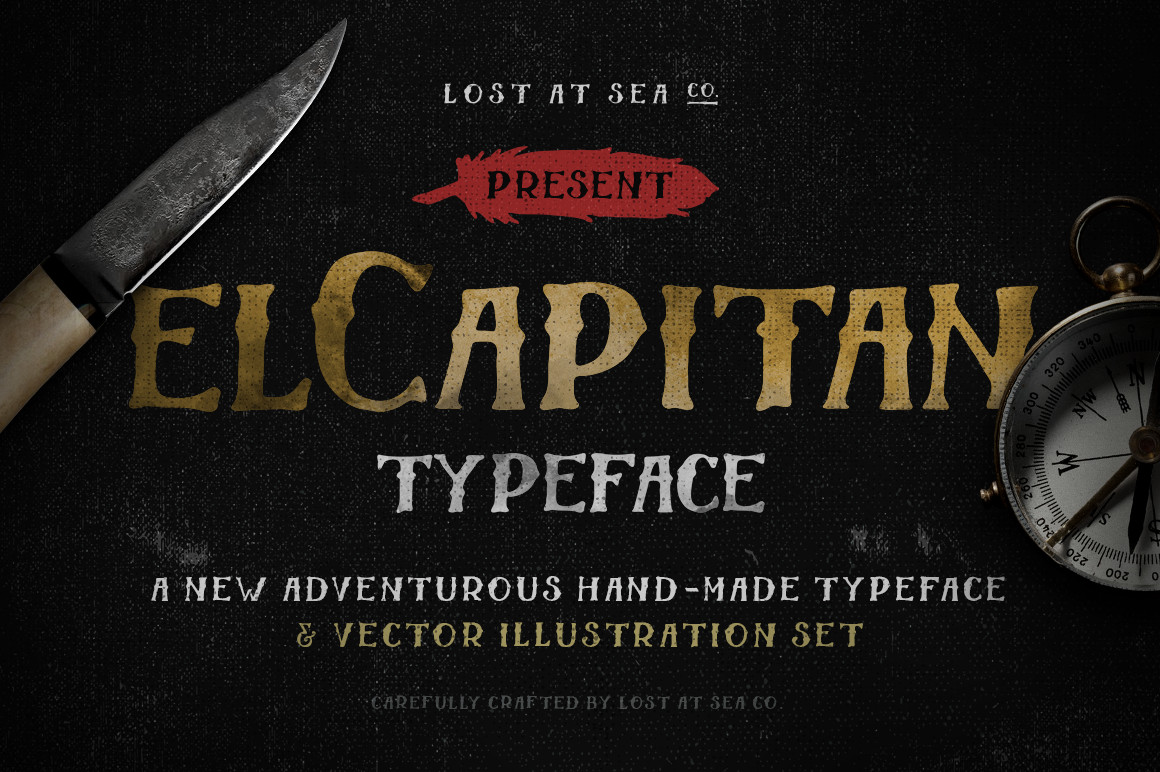
El Capitan – Handdrawn Font + Bonus
Introducing El Capitan. El Capitan is a new adventurous hand crafted typeface (for both personal and commercial use) that will give your project the proper vintage feel to it. The font supports accented characters and can be used for various purposes such as headings, logos, t-shirt designs, lables, posters, badges etc. It comes in .OTF format along with a handdrawn vector illustration kit.